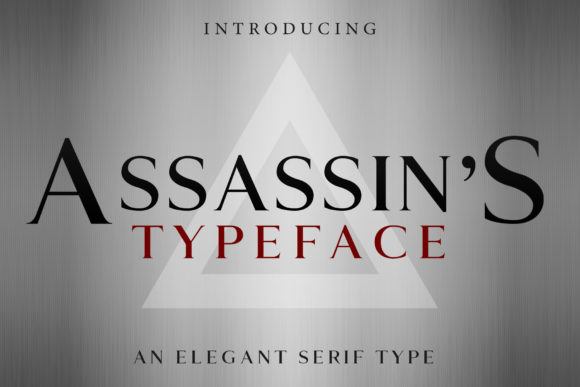
Prepare yourself for a typographic revolution with Assassin's Font, a bold serif font that's sure to leave a lasting impression on your audience. Inspired by the captivating world of the Assassin's Creed video game series, this font exudes an air of mystery and intrigue that will elevate your designs to new heights.
With its sharp edges and intricate details, Assassin's Font commands attention and demands respect. Its strong, confident strokes evoke a sense of power and authority, while its elegant curves add a touch of sophistication and intrigue. Whether you're creating logos, posters, or website designs, Assassin's Font will lend your work an aura of epic adventure and timeless appeal.
Immerse yourself in the world of assassins and heroes as you type with Assassin's Font. Each letter is a carefully crafted work of art, designed to transport you to a realm of mystery and excitement. Feel the thrill of the chase, the tension of a close encounter, and the satisfaction of a victory hard-earned. Let Assassin's Font ignite your creativity and fuel your imagination as you bring your designs to life.